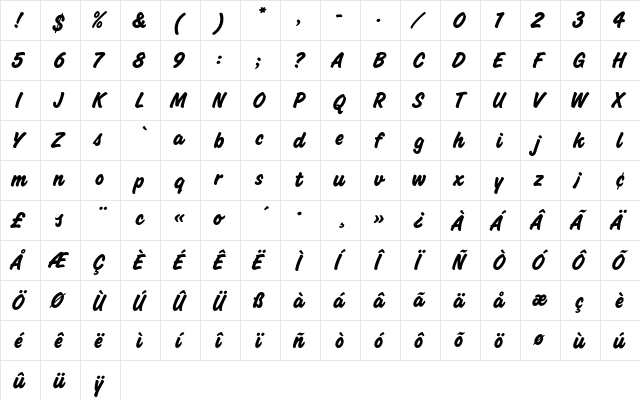
ChallengeEF Bold
Design Context for ChallengeEF Typeface
ChallengeEF is a composed and adaptable typeface that performs quietly and consistently across a wide range of design contexts. Its bold stroke weight gives it real presence on the page.